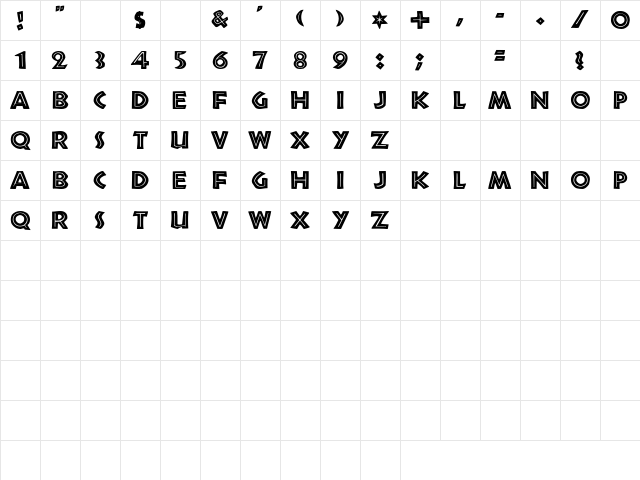
Tribeca Regular
Design Context for Tribeca
Tribeca is a composed and adaptable typeface that performs quietly and consistently across a wide range of design contexts.